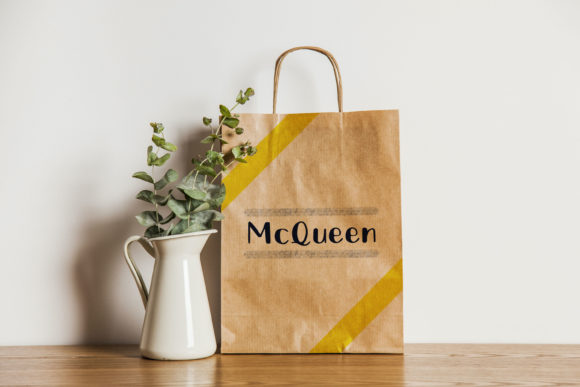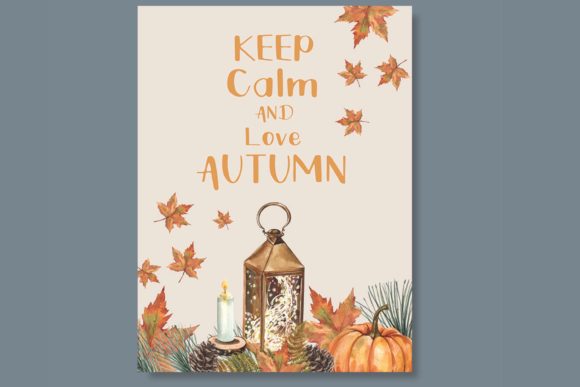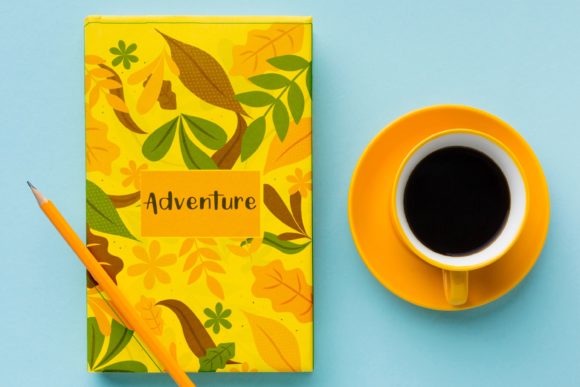
Maple Butter Font
About Maple Butter Font
Maple Butter is a joyful handwritten font! It looks outstanding on numerous topics, such as quotations, banners, logos, product packaging, titles, headers, menu lists and even for digital note taking! Maple Butter’s friendly and versatile feel will match all of your creative ideas!